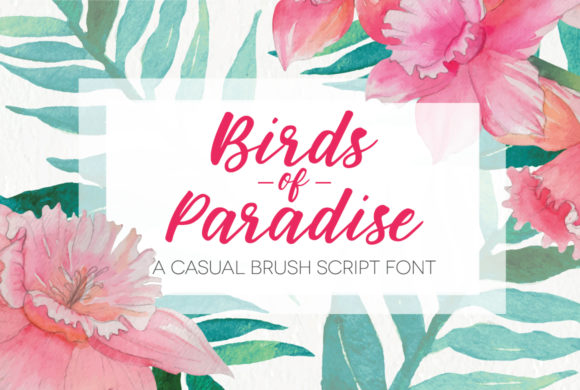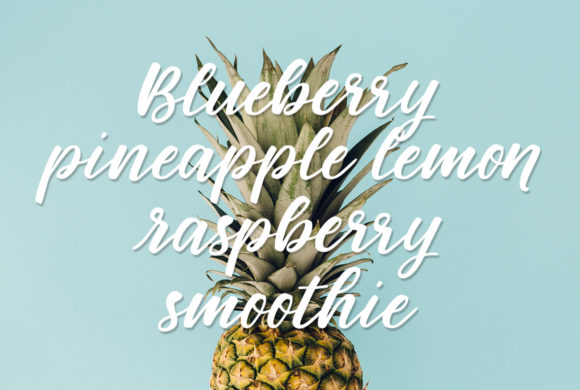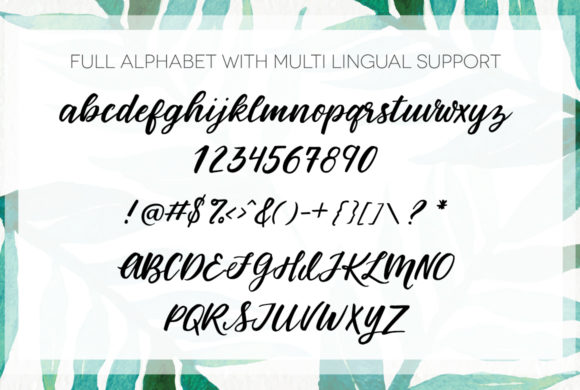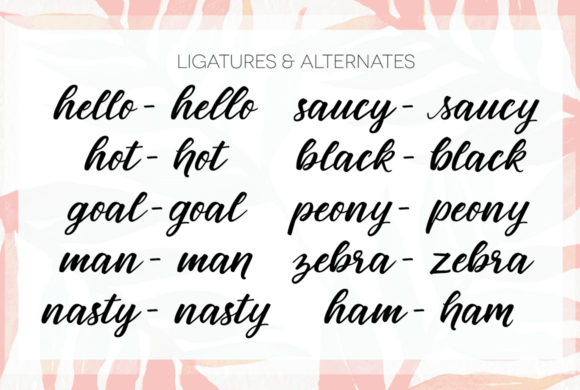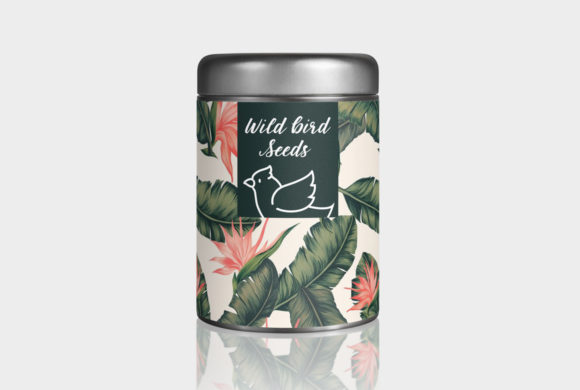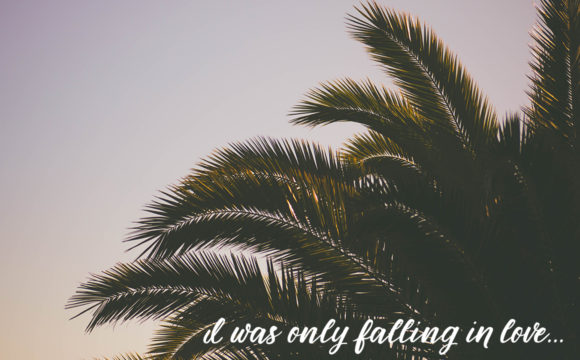
Birds of Paradies Font
About Birds of Paradies Font
Birds of Paradise is a casual, fun handwritten font, created by using a brush pen. Clean and a little bit quirky, this font is the perfect fit for all of your logos, branding, social media, and crafty DIY projects.